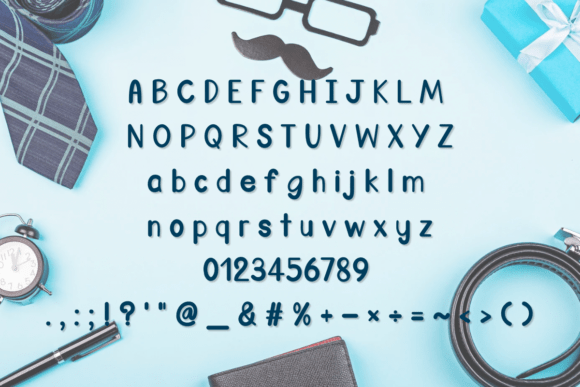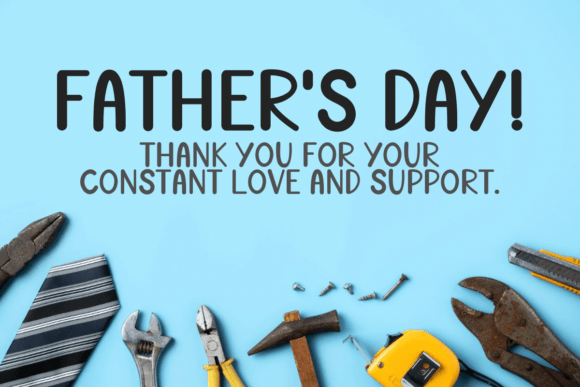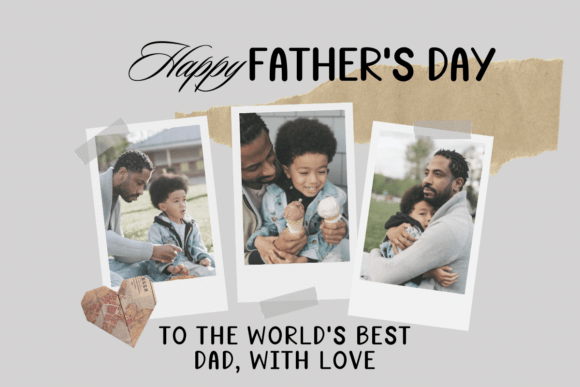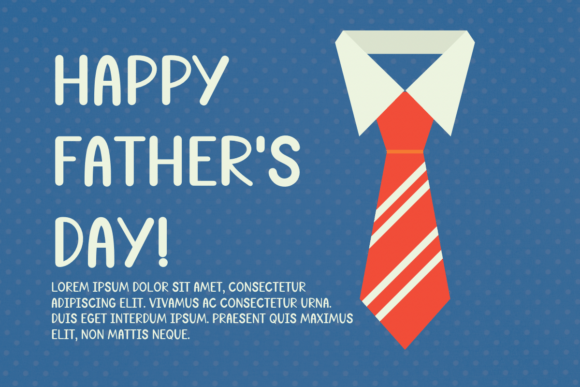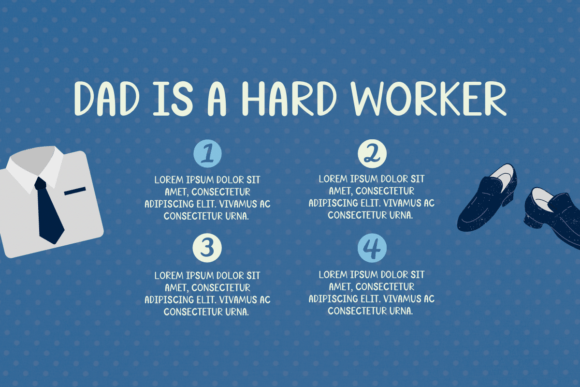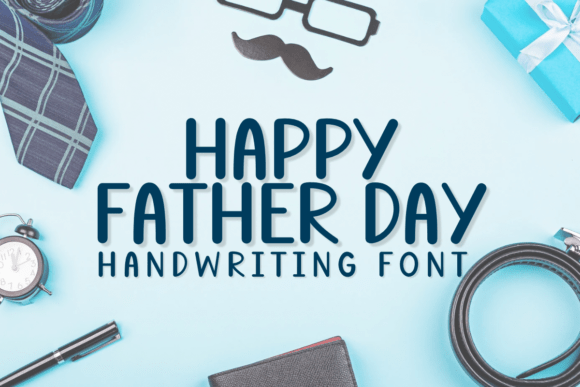
Introducing Happy Father Day Font: The Perfect Handwritten Font for Your Creative Projects
Are you looking for a unique and personalized font to make your designs stand out? Look no further than the Happy Father Day Font, a beautiful handwritten font that’s perfect for a variety of creative projects. In this article, we’ll explore the features and uses of this amazing font, and show you how to make the most of it in your designs.
What is Happy Father Day Font?
Happy Father Day Font is a handwritten font that’s designed to add a personal touch to your designs. With its unique and elegant lettering style, this font is perfect for creating beautiful and eye-catching designs that will leave a lasting impression on your audience. Whether you’re a designer, crafter, or DIY enthusiast, this font is sure to become a favorite in your collection.
Uses of Happy Father Day Font
One of the best things about Happy Father Day Font is its versatility. This font can be used for a wide range of projects, including:
- Taking notes: Add a personal touch to your notes and journals with this beautiful handwritten font.
- Writing a diary: Make your diary entries feel more special with this elegant font.
- Creating greeting cards: Design beautiful and unique greeting cards for special occasions like Father’s Day, birthdays, and more.
- Banners: Use this font to create eye-catching banners for parties, events, and promotions.
- Content creation: Add a personal touch to your blog posts, articles, and social media content with this font.
- Mugs: Design personalized mugs with this font for a unique and thoughtful gift.
- Cards: Create beautiful and unique cards for any occasion, from birthdays to weddings.
- Shirts: Design custom t-shirts with this font for a personalized and stylish look.
- Stationery: Use this font to create personalized stationery, including notebooks, journals, and more.
- Social media posts: Add a personal touch to your social media posts with this font, and make them stand out from the crowd.
Why Choose Happy Father Day Font?
So why choose Happy Father Day Font over other fonts? Here are just a few reasons:
- Unique and elegant lettering style: This font has a unique and elegant lettering style that’s sure to make your designs stand out.
- Versatile: This font can be used for a wide range of projects, from notes and journals to banners and social media posts.
- Personal touch: This font adds a personal touch to your designs, making them feel more special and unique.
Tips for Using Happy Father Day Font
Here are a few tips for getting the most out of Happy Father Day Font:
- Experiment with different sizes and colors: Try out different sizes and colors to see what works best for your design.
- Pair with other fonts: Pair this font with other fonts to create a unique and interesting look.
- Use for headings and titles: Use this font for headings and titles to add a personal touch to your designs.
- Use for body text: Use this font for body text to create a more personal and engaging reading experience.
In conclusion, Happy Father Day Font is a beautiful and versatile handwritten font that’s perfect for a wide range of creative projects. With its unique and elegant lettering style, this font is sure to add a personal touch to your designs and make them stand out from the crowd. Whether you’re a designer, crafter, or DIY enthusiast, this font is sure to become a favorite in your collection. So why wait? Download Happy Father Day Font today and start creating your own unique and personalized designs!